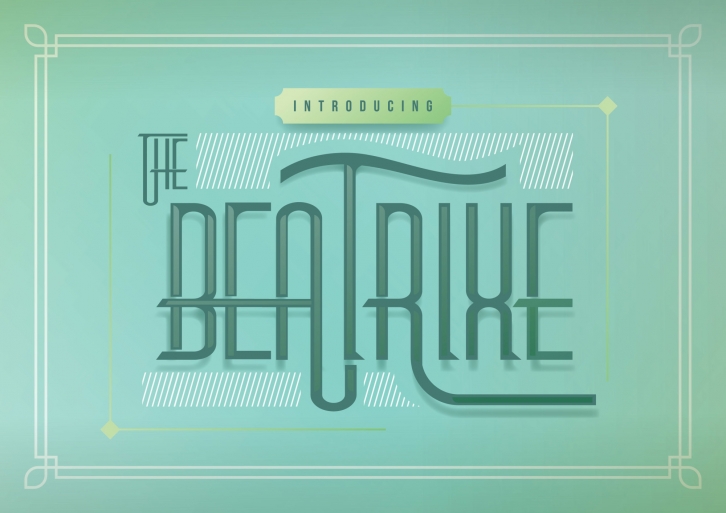
Beatrixe is a gorgeous font that was realeased on June 14, 2016. The font can be used in many style contexts and design environments. Perfect for invitations, magazines, websites, logos, and more! It was designed by drizy studio and the file size is 18.23 MB. Thanks for checking out this font!